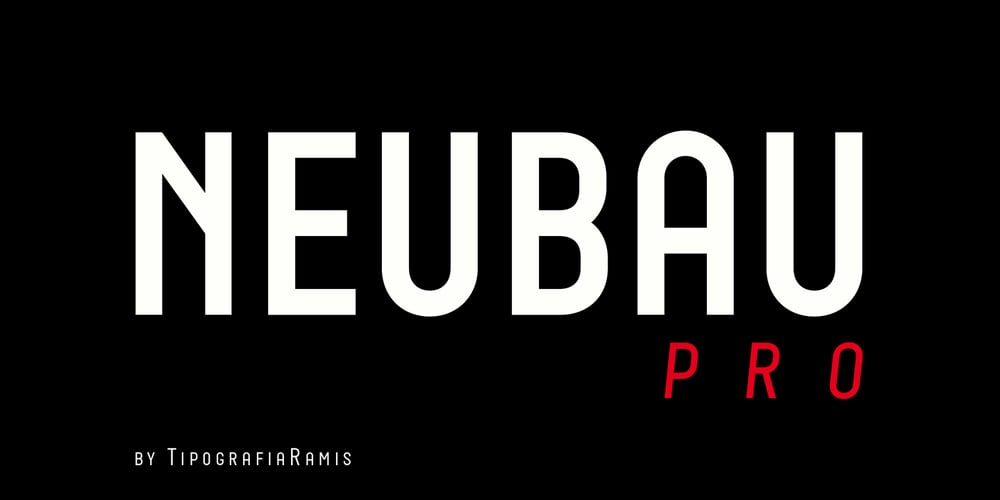
Neubau Pro Font Family was designed by Ramiz Guseynov and published by TipografiaRamis. Neubau Pro contains 6 styles and family package options. Neubau is a condensed geometric display typeface, designed in 2009. The inspiration for this face came from Joost Schmidt lowercase letters developed during 1925-28 in Bauhaus Dessau. Schmidt was one of the proponents of New Typography – a movement advocating the use of only lowercase letters which were constructed strictly geometrically using only ruler and compass. Neubau Pro is the new edition of Neubau fonts. The new typeface is an upgraded version of an old fonts (2009), with careful refinements to glyph shapes, and the extension of glyph amounts which enabled support of more Latin languages as well as Greek and Cyrillic languages. Neubau Pro is released in six styles with small caps, and true italics, and contains OpenType features. This typeface can be used for editorials and print designs.